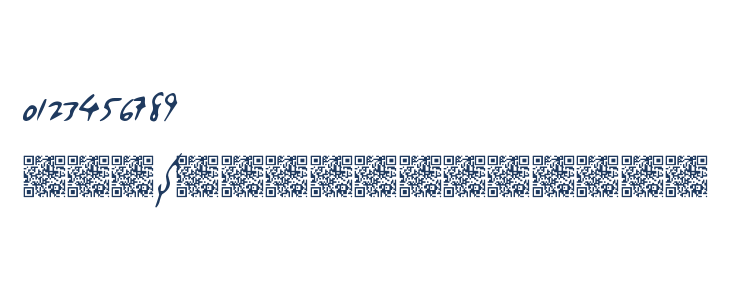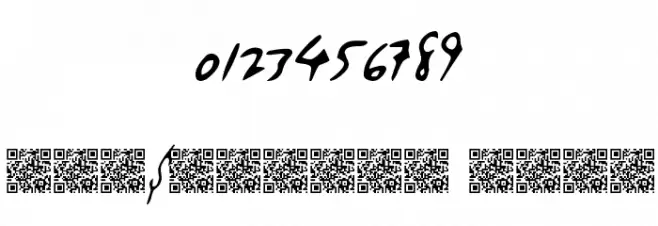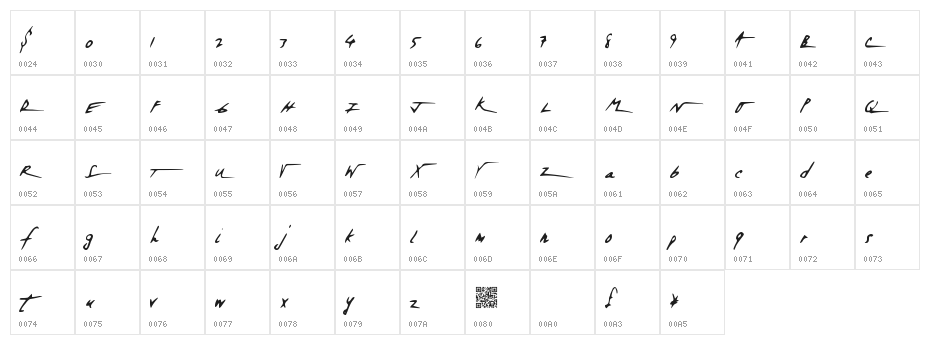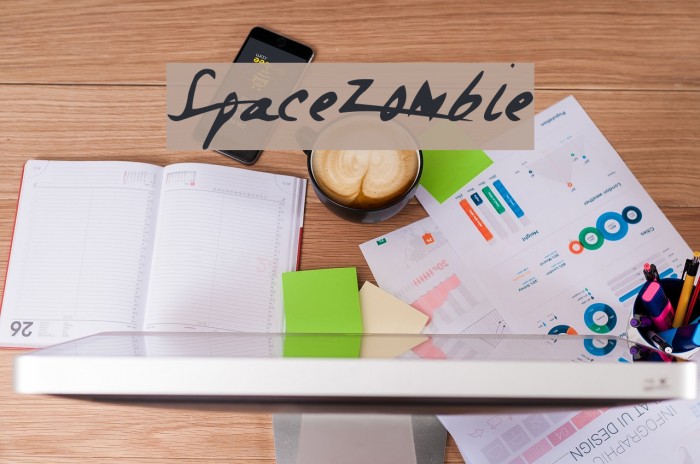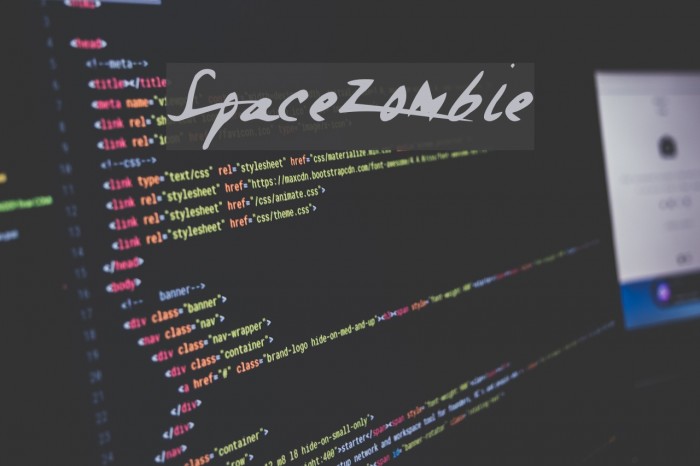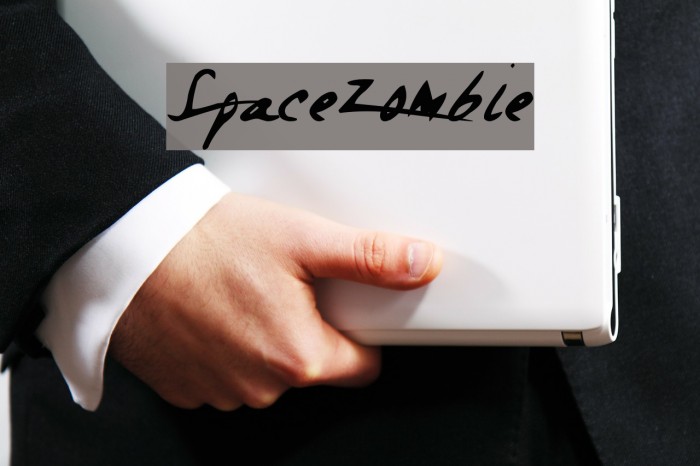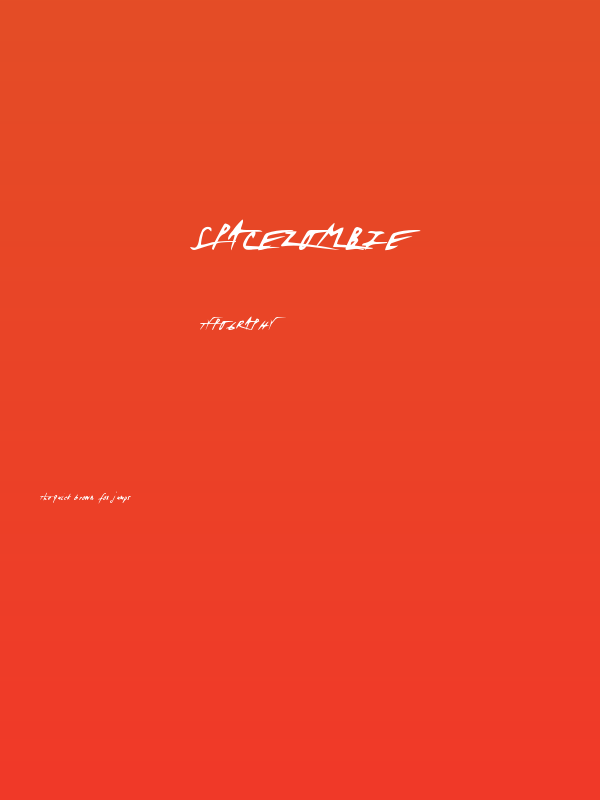
SpaceZombie Font
SpaceZombie Description
This font exhibits a dynamic and edgy style, characterized by its sharp, angular strokes and a handwritten appearance. The letters are irregular and slightly chaotic, giving it a rebellious and energetic feel. The uppercase and lowercase letters maintain a consistent style, with exaggerated curves and slanted lines that create a sense of movement. Numbers and special characters follow the same aesthetic, ensuring a cohesive look across all elements. The overall design is bold and expressive, making it ideal for projects that require a touch of individuality and flair.
| Use Case | Logos, Headlines, Posters |
| Proposed Projects | Perfect for album covers, skateboarding brands, graffiti art, and edgy fashion labels. |